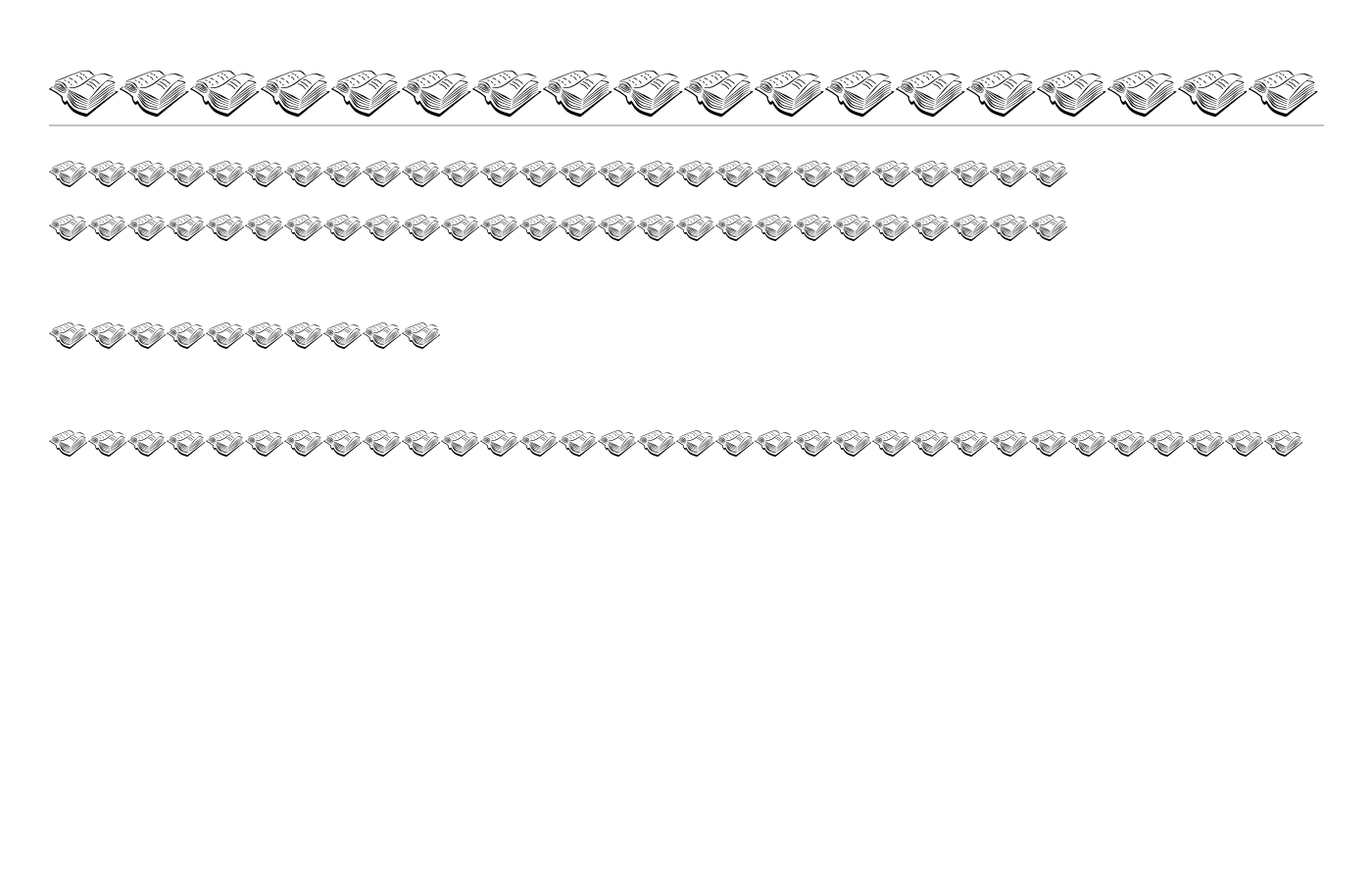
Book Stamps Figure Font is a decorative symbol typeface featuring detailed, vintage-style book illustrations as its glyphs. This unique and artistic font lends a nostalgic, scholarly feel, making it perfect for creative projects related to literature, education, or vintage-themed branding. It works best for stamps, logos, and decorative accents where a distinctive, thematic visual touch is desired.
Book Stamps Figure Font